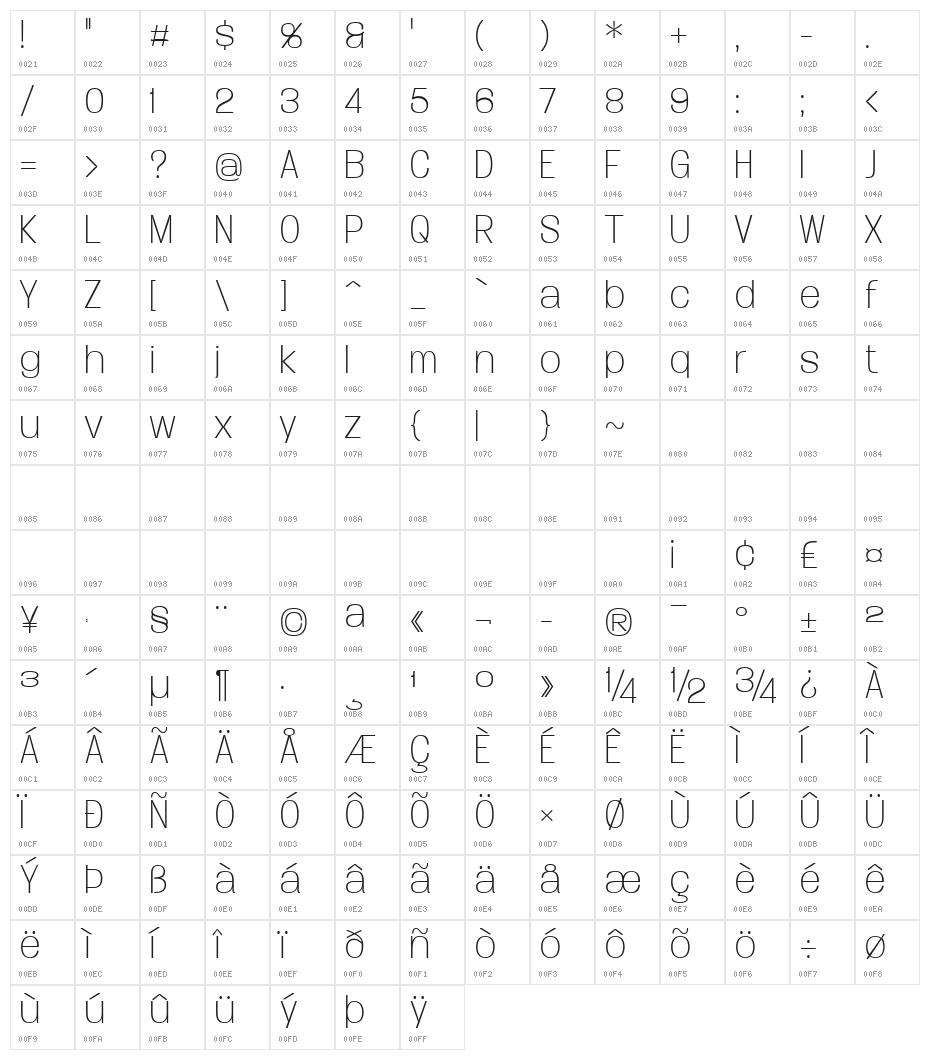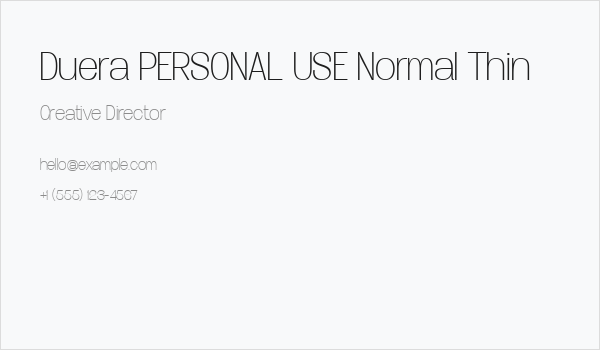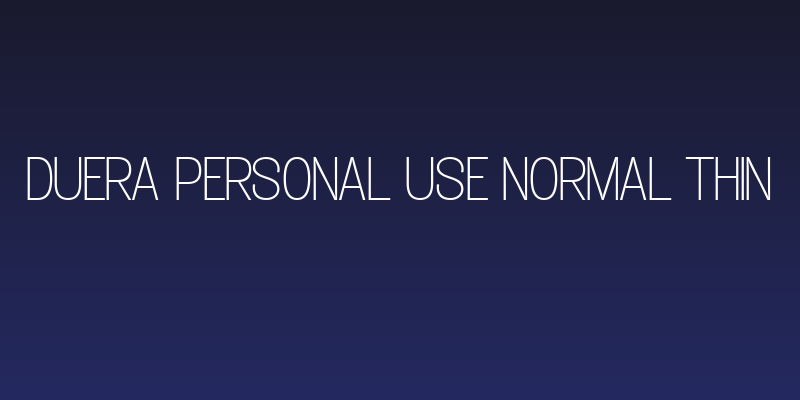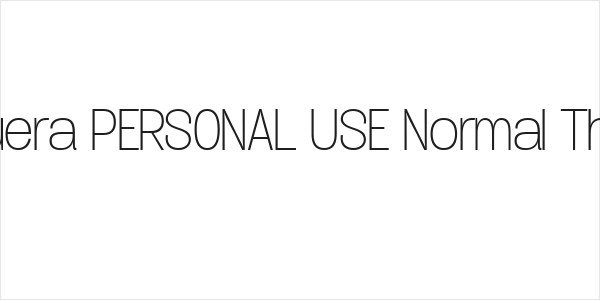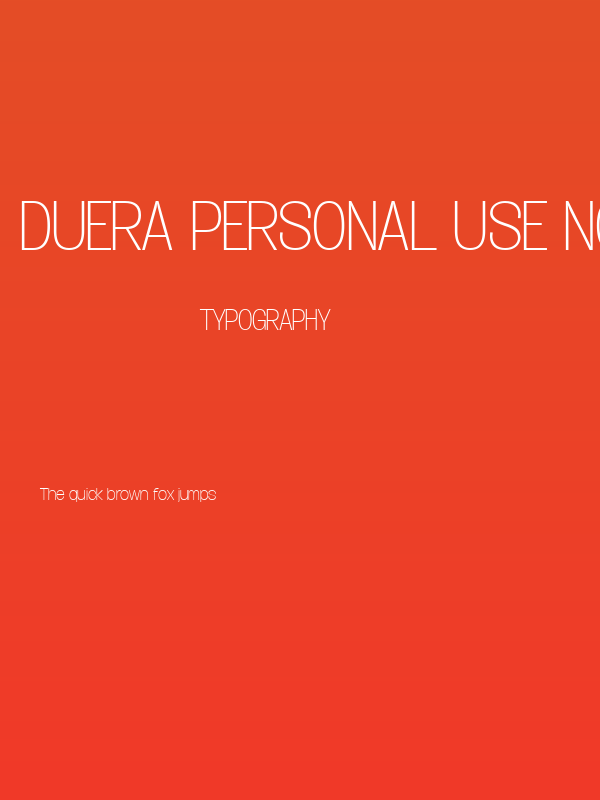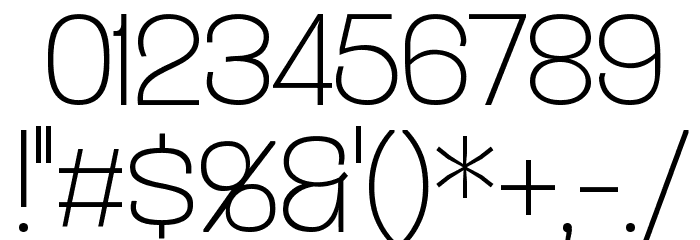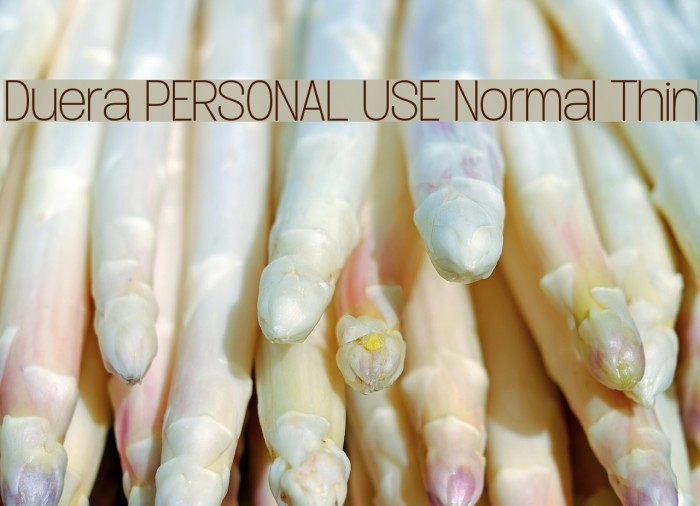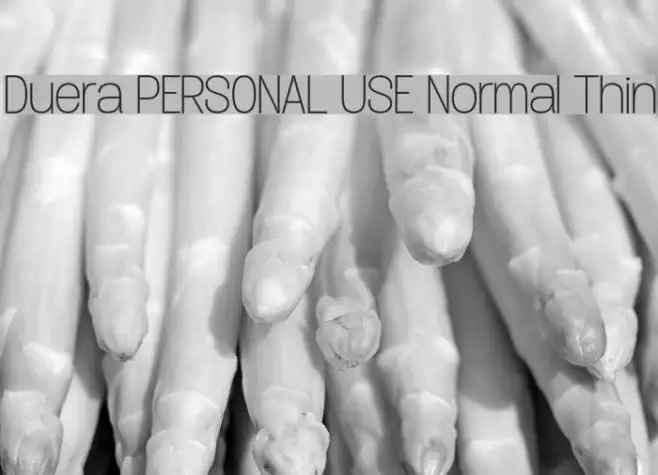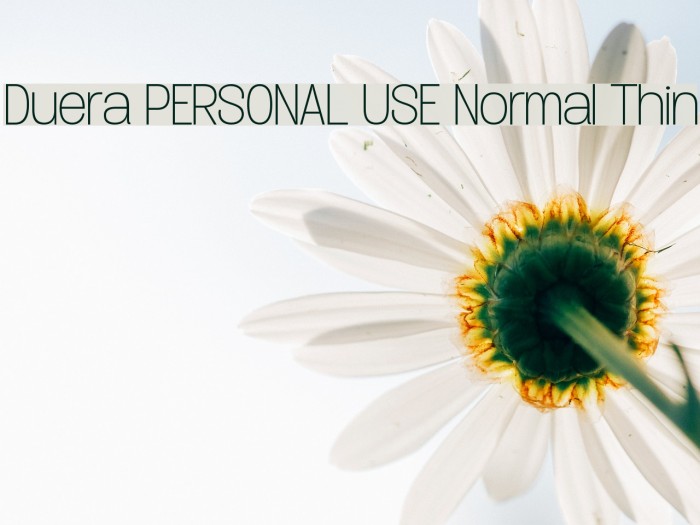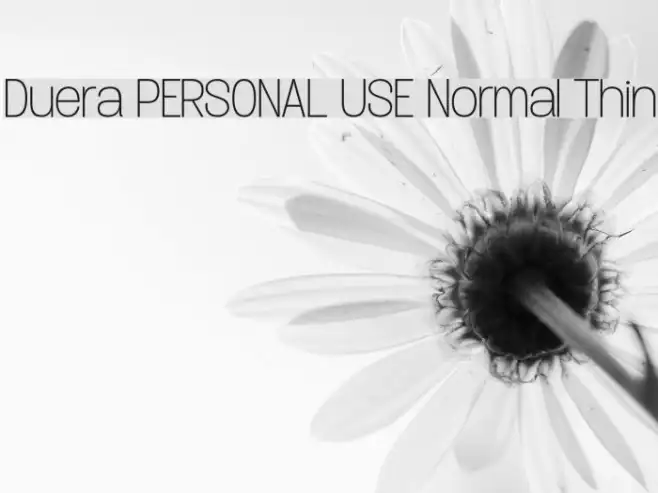
Duera PERSONAL USE Normal Thin Font
Duera PERSONAL USE Normal Thin Description
This font features a clean and modern sans-serif style with thin, uniform strokes that convey a sense of elegance and simplicity. The characters are well-proportioned, with a consistent height and width that enhances readability. The uppercase letters are tall and commanding, while the lowercase letters maintain a balanced and harmonious appearance. The numerals are clear and distinct, making them suitable for various applications. Special characters are included, providing versatility for different design needs. Overall, the font's minimalist aesthetic makes it ideal for contemporary projects.